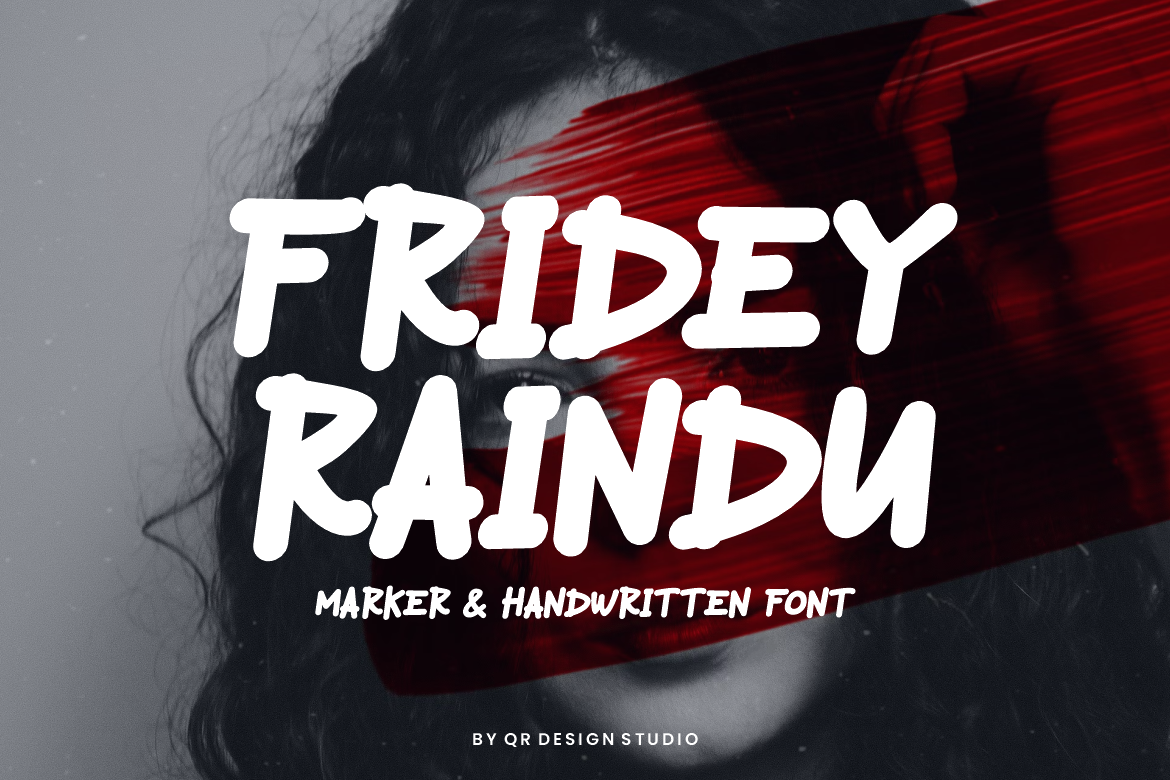
Fridey Raindu Stamp & HandDrawn Font
Fridey Raindu - Stamp & Hand Drawn Font is a hand drawn and authentic display font. The font is suitable for any branding project like poster, logo, sport, and many more. Outstanding in a wide range of contexts.